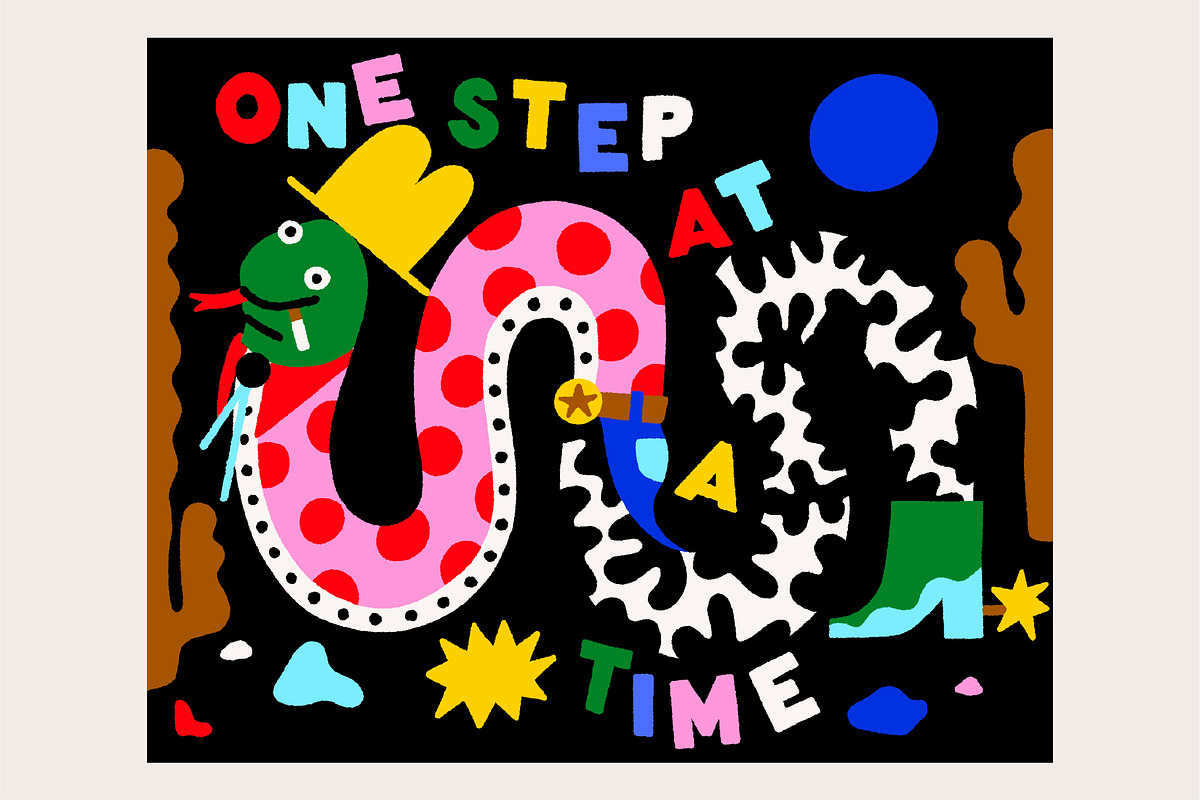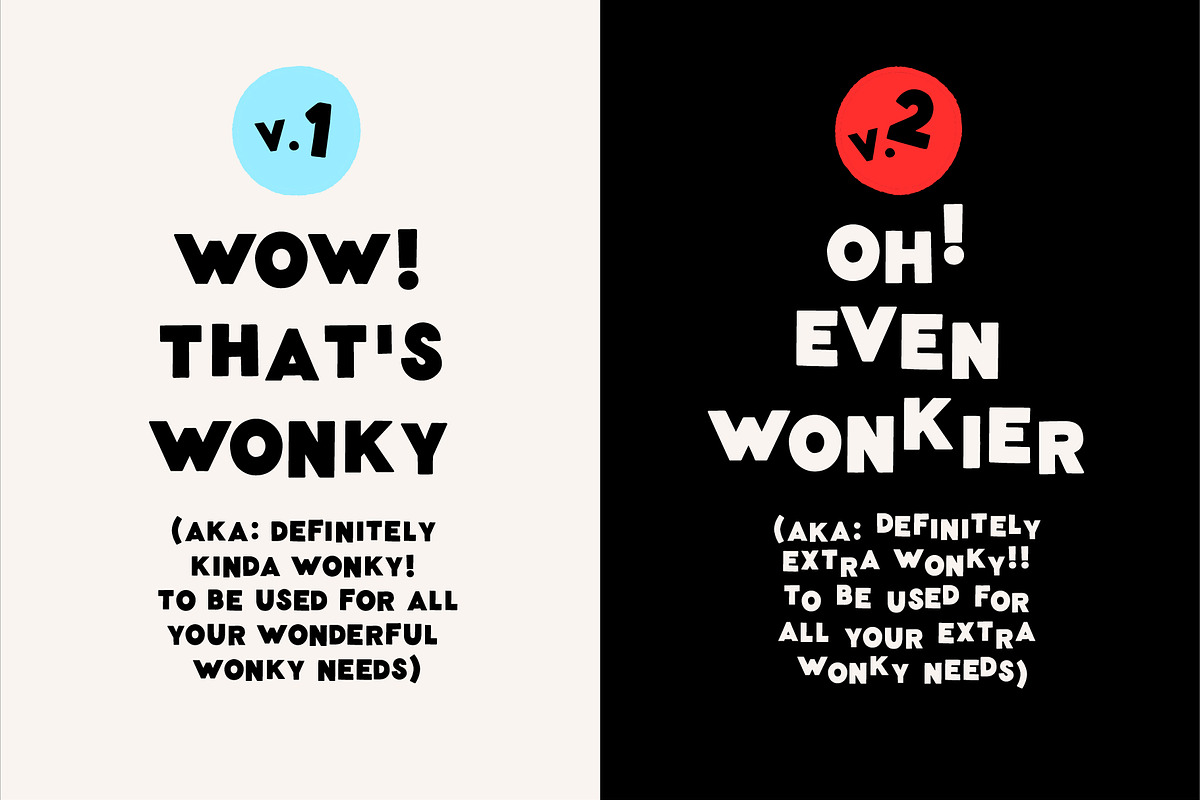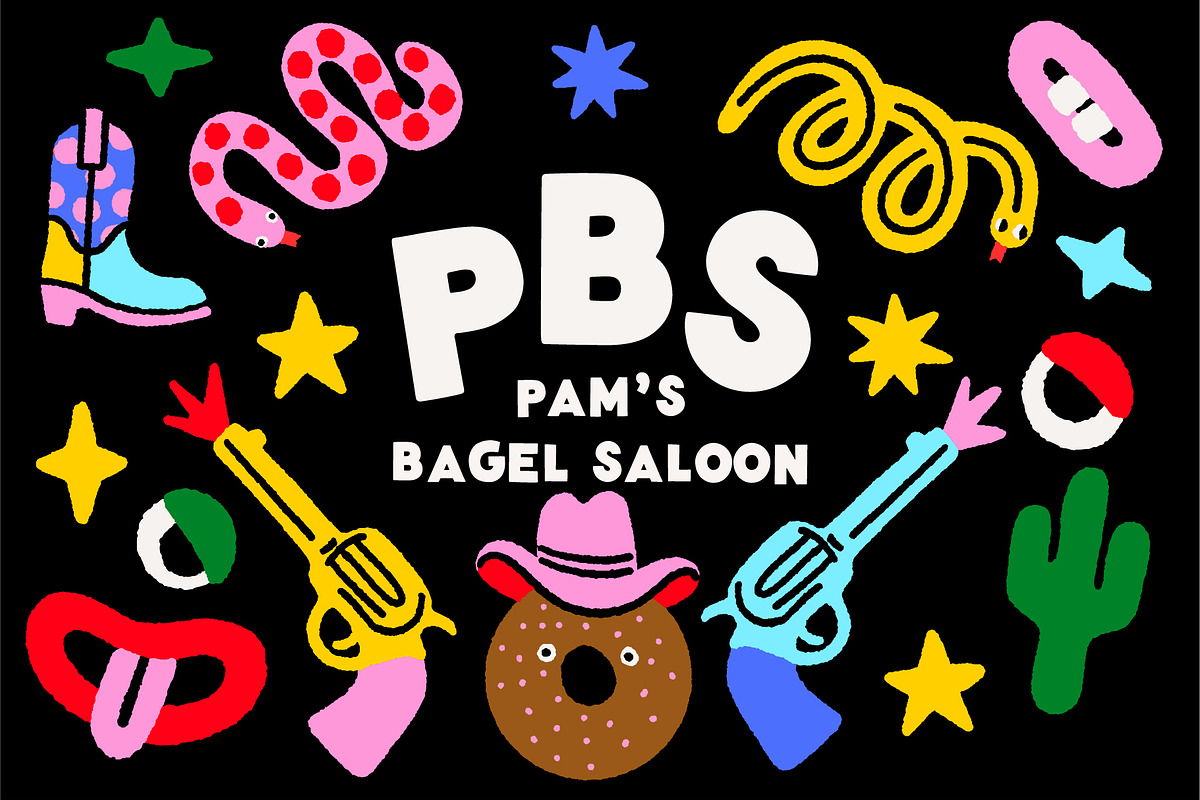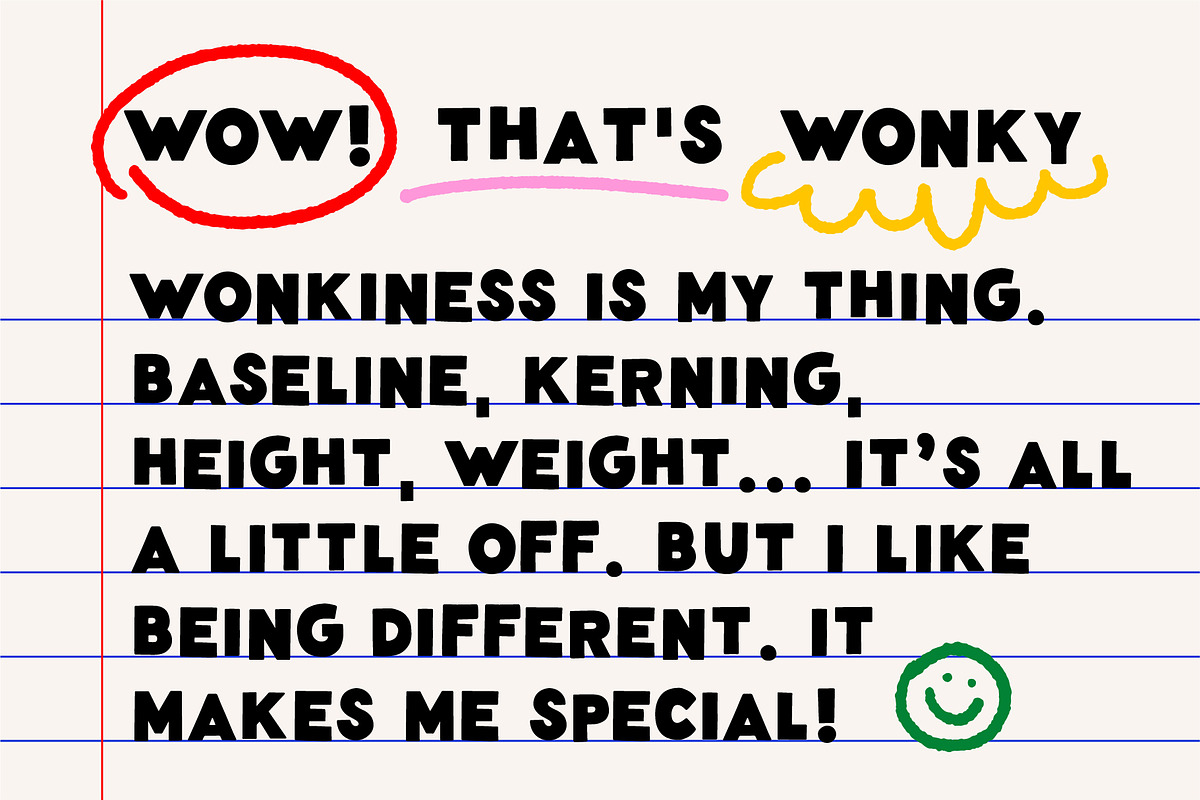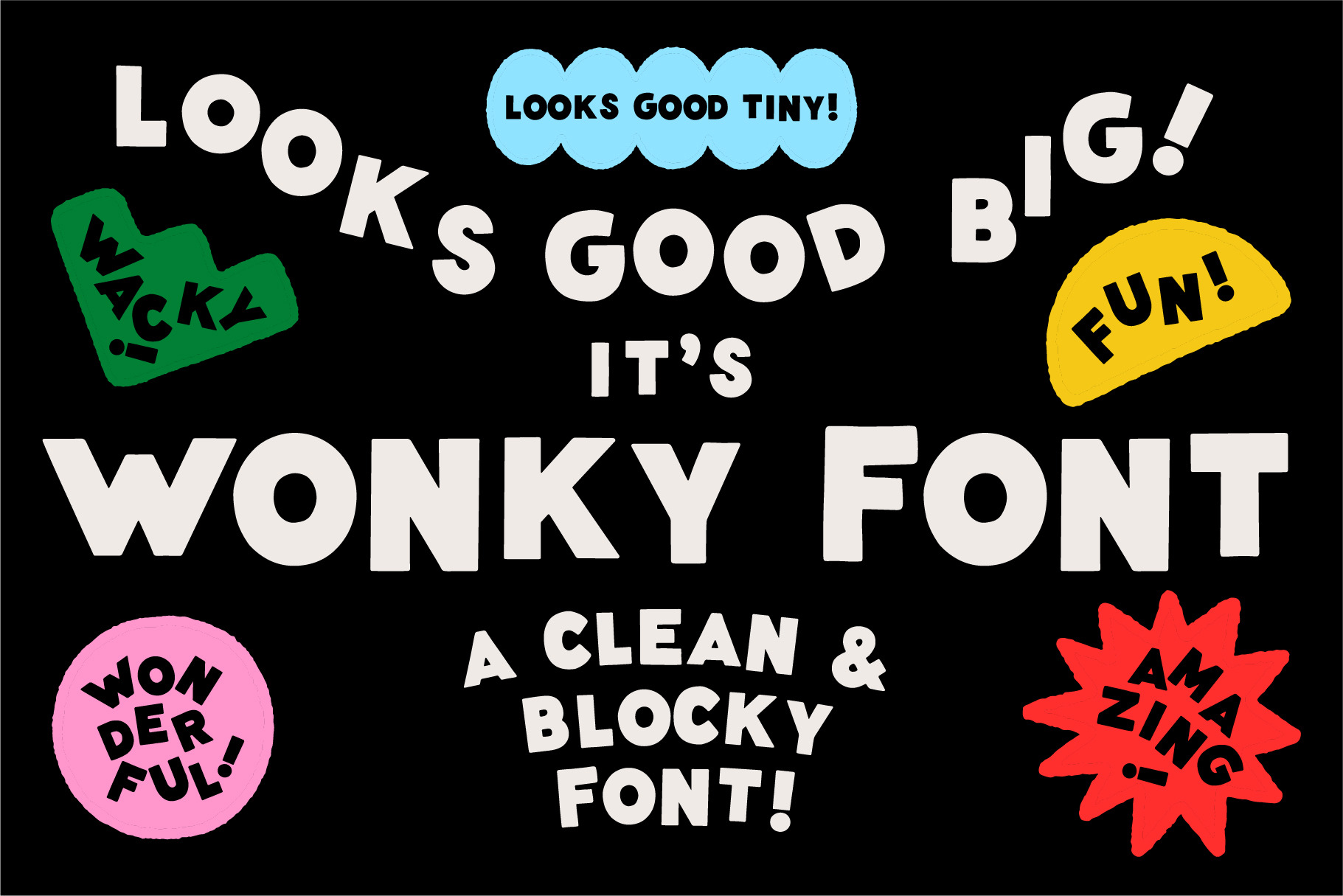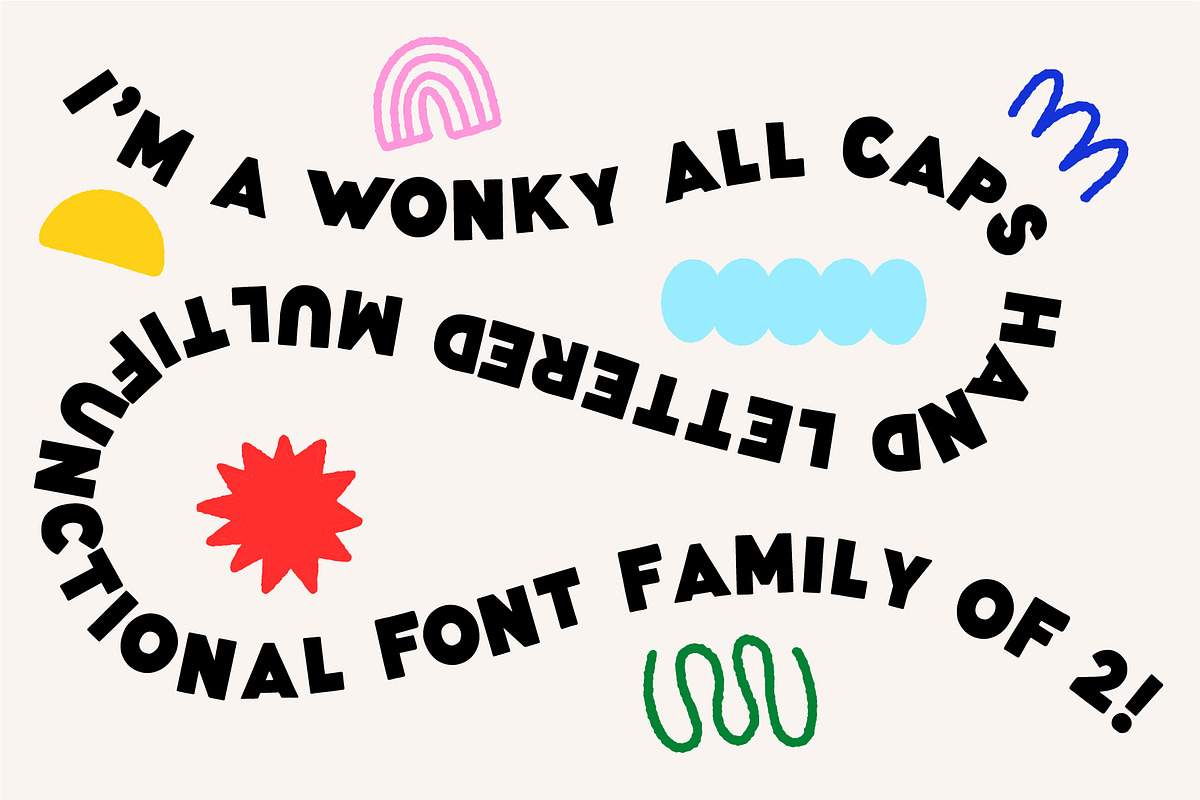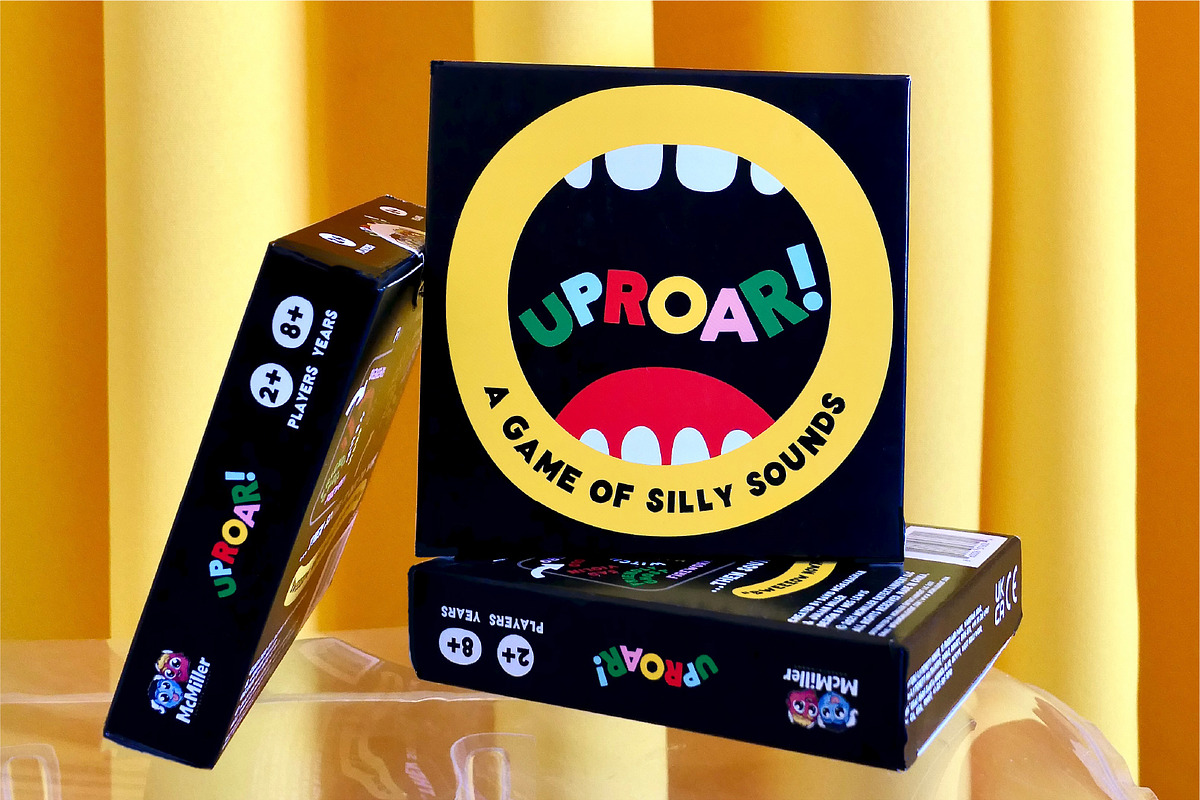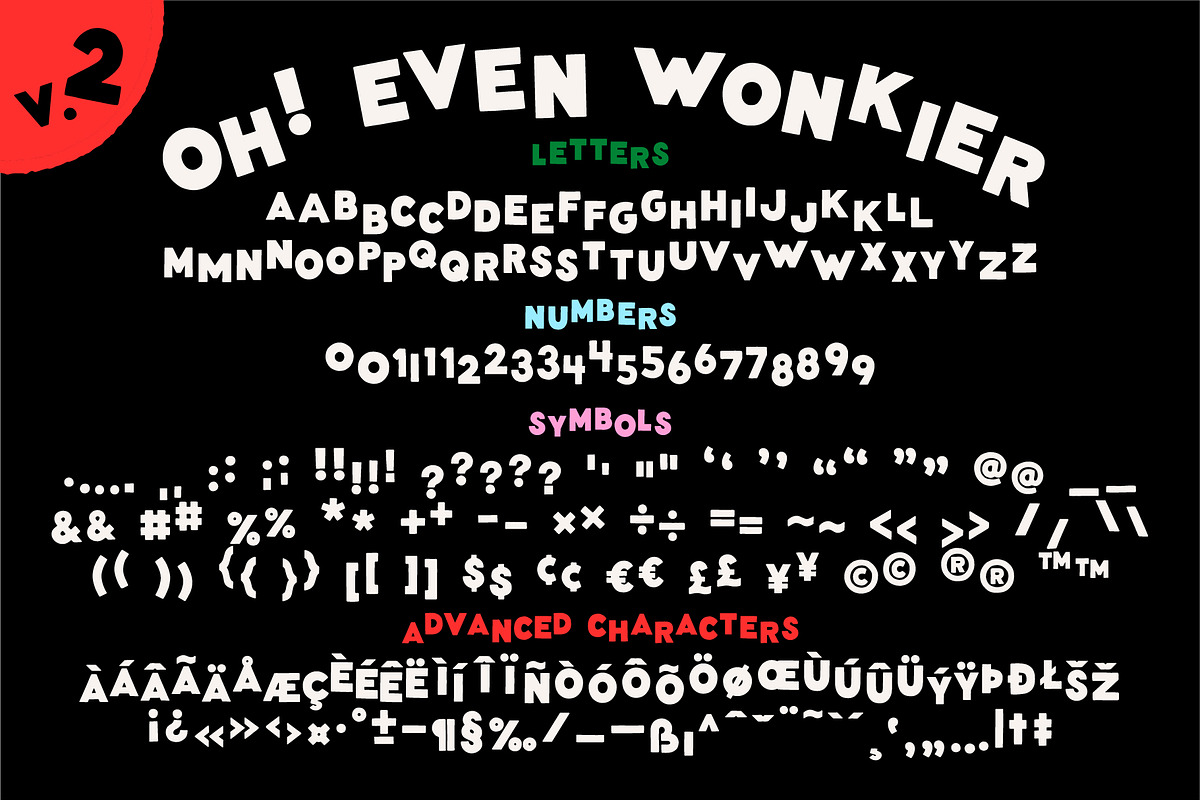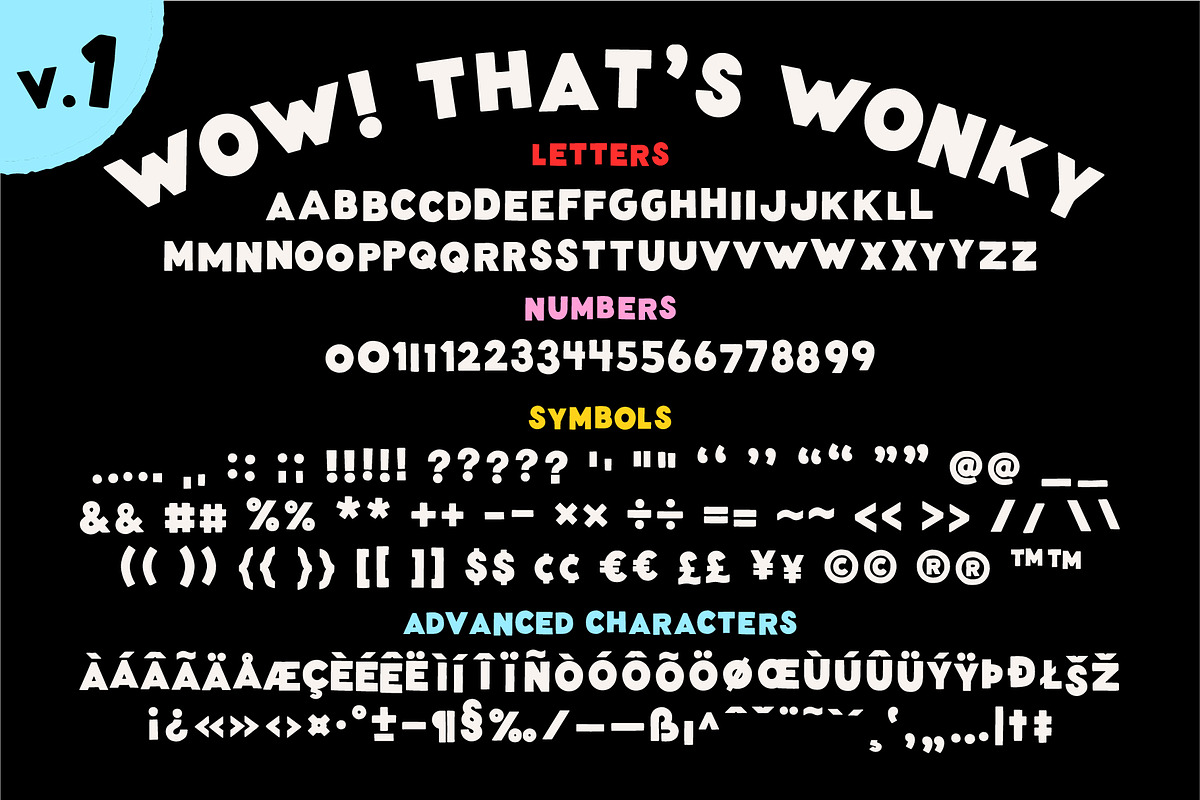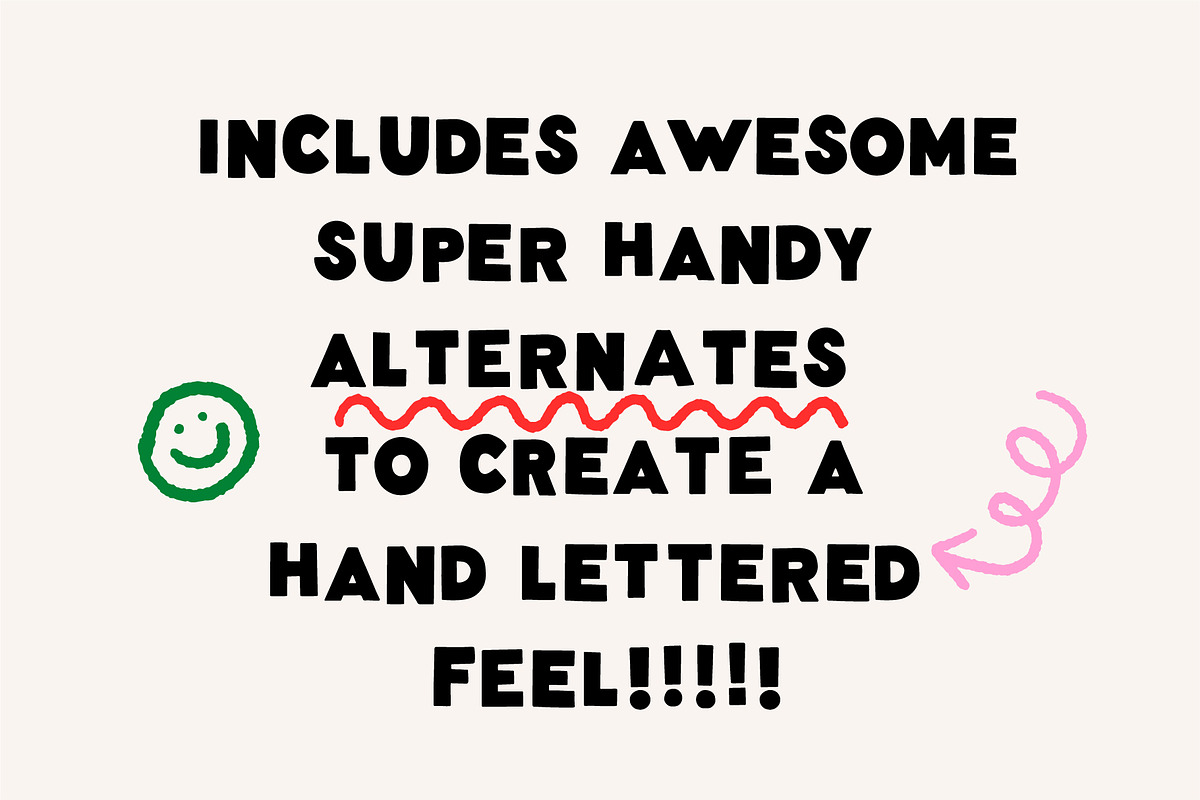
Wonky Font! A Clean & Blocky Font
Wonky font is a magnificently multifunctional font family of two. Wonky font is all caps and has a clean, hand lettered feel. It's nonsensical spacing and subtle differences allow for maximum wonk! Includes alternates to make sure that no character looks too repetitive (see: wonk). And! It comes with two styles: "Wow! That's Wonky" and "Oh! Even Wonkier" depending on the level of wonk you're looking for.
- Letters!
- Numbers!
- Symbols!
- Punctuation!
- Advanced Characters!
Really nice font, a lot of character! However the kerning is quite off, especially the AVA kerning needs quite a bit of work.
A font so nice I bought it twice! Looks wonderful in a variety of contexts. Really adds some personality to whatever you're working on. So far used it for an instagram post, heading typeface, and 5 AFL milestone banners. Really thrives when you're going for something that needs a community feel. If you're using it on the web, you'll just need to tweak the padding on top and 0.03em of extra space between characters to give it room to be it's beautiful wonky self.
In this digital age where everything is too precise and soul-less, it is refreshing to see a font that thumbs its nose at all of this binary-ness. I love that this font is imperfect, random, and full of spirit and character. I will enjoy using this. Let's continue to rage against the machine and continue with the belief that it is up to us to change things! Thank you to the creator! This is a lovely font.